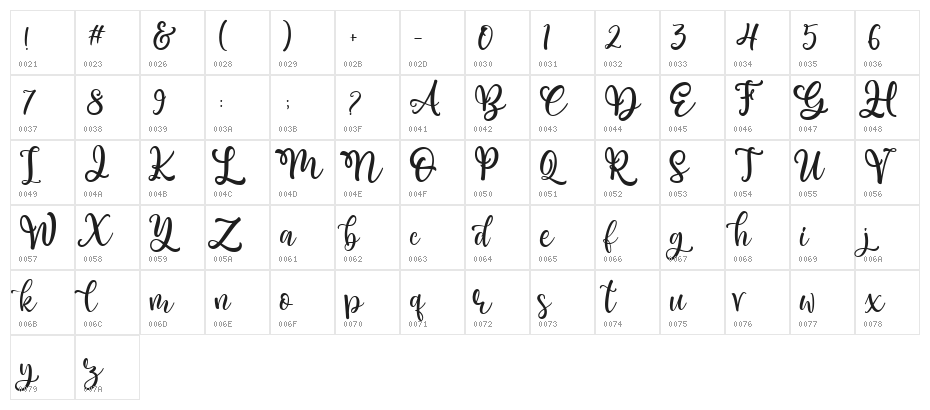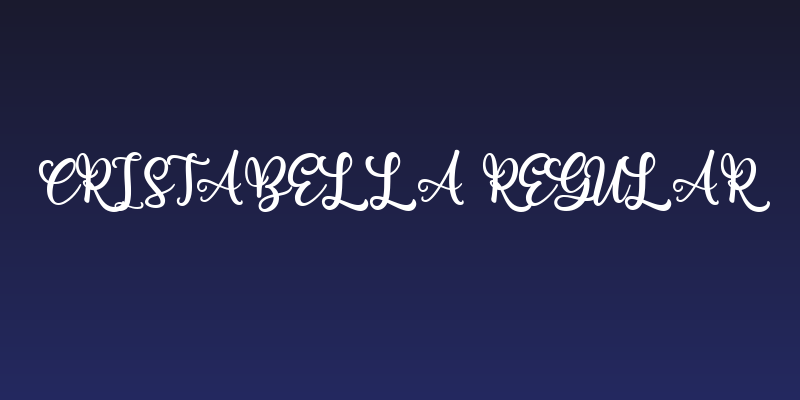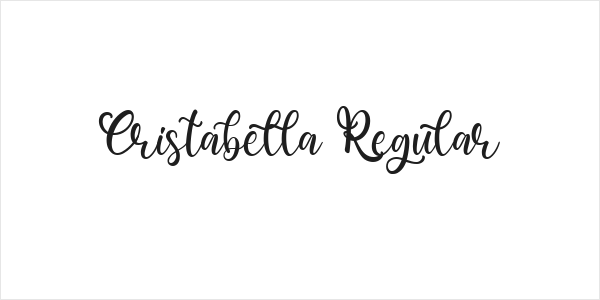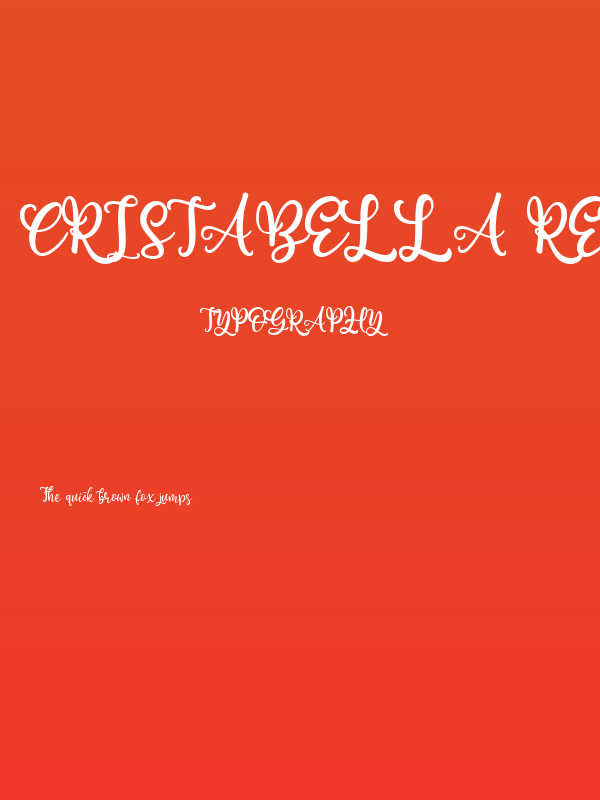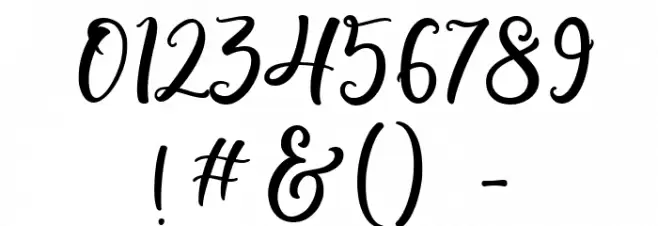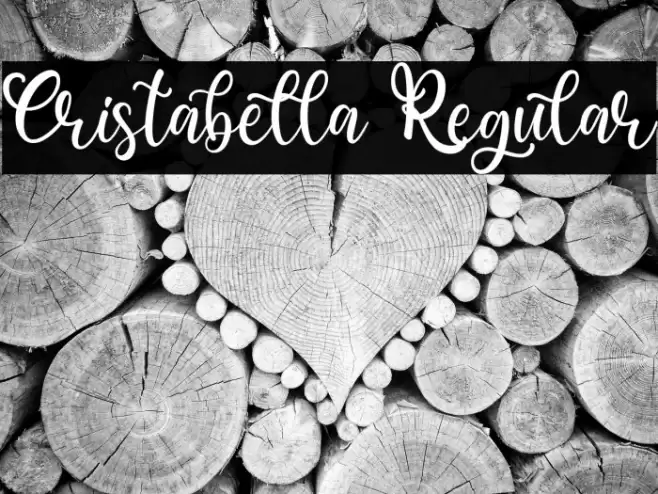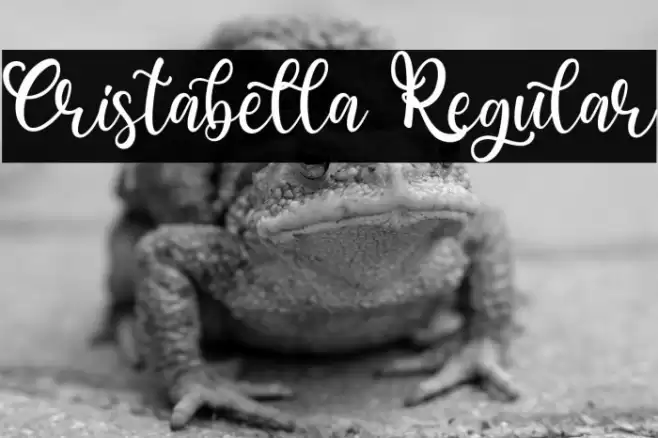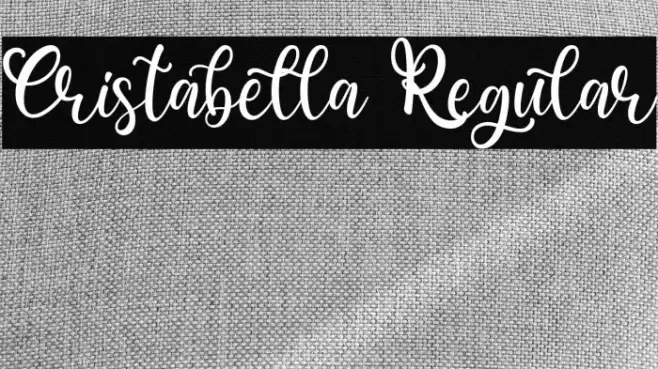
Cristabella Regular Font
Cristabella Regular Description
This font features an elegant and flowing script style, characterized by its smooth, cursive letterforms. The uppercase letters are ornate, with intricate loops and swirls that give a sense of sophistication and grace. The lowercase letters maintain a consistent flow, complementing the uppercase with their rounded and connected strokes. Numbers and special characters are designed to match the overall aesthetic, ensuring a cohesive look across all elements. The font's design is perfect for projects that require a touch of elegance and personality.